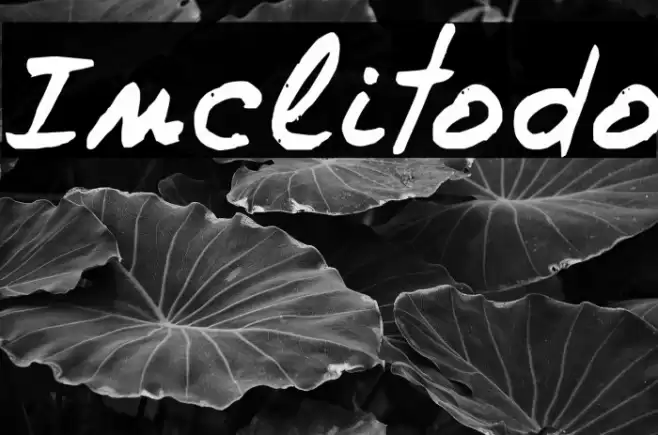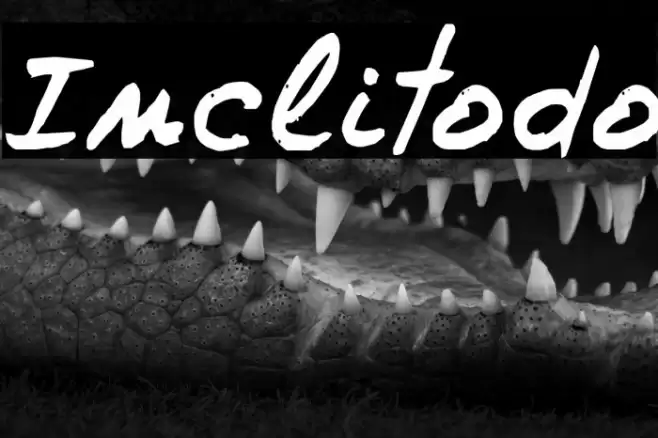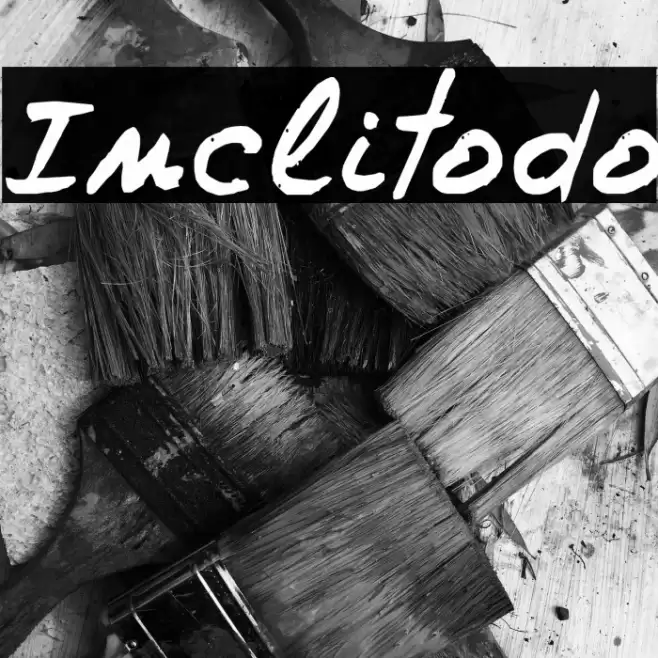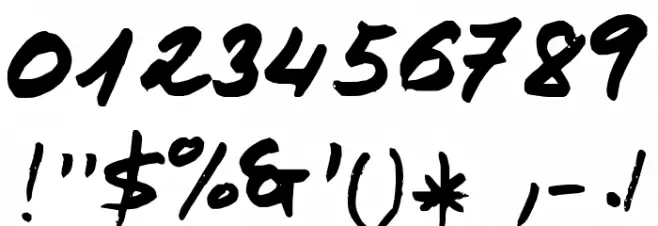
Inclitodo Font
Inclitodo Description
This font features a dynamic and energetic handwritten style, characterized by its bold and expressive strokes. The letters are slightly slanted, giving a sense of motion and fluidity. The uppercase letters are prominent and assertive, while the lowercase letters maintain a consistent flow, enhancing readability. The numerals are bold and clear, matching the overall style of the alphabet. Special characters are integrated seamlessly, maintaining the handwritten aesthetic. This font is perfect for projects that require a personal touch or a creative flair.
A bold, dynamic handwritten font with expressive strokes and a fluid style from Regular fonts.
- Proposed Projects: Ideal for creative projects such as greeting cards, invitations, personal branding, and artistic posters.
- Use Case: Logos, Headlines, Artistic projects